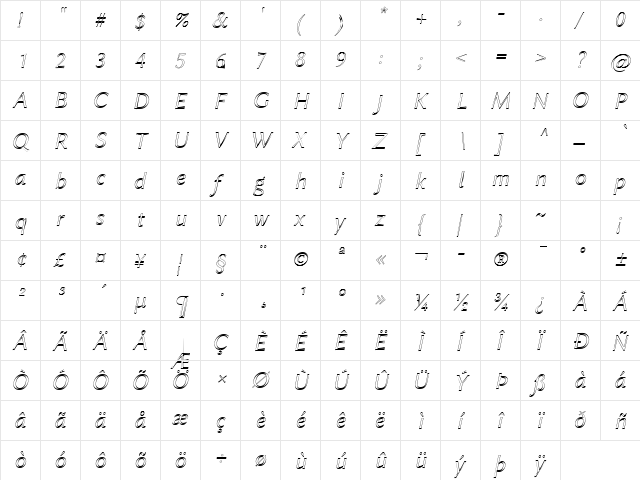
Linux Biolinum Outline Italic
| Foundry | Philipp H. Poll |
| Designer | Philipp H. Poll |
Design Context for Linux Biolinum Outline Typeface
Linux Biolinum Outline is built around its visual character rather than neutral utility — its distinctive forms are designed to make an impression at display sizes. The dynamic lean of this cut emphasises speed and emphasis in any layout.
Font Pairing: Pair with a clean neutral sans-serif for body copy to let Linux Biolinum Outline's character lead without overwhelming the composition.
Pro Tip: Use Linux Biolinum Outline exclusively at display sizes — it was designed to be seen, not read at length. Let a neutral companion handle body copy.